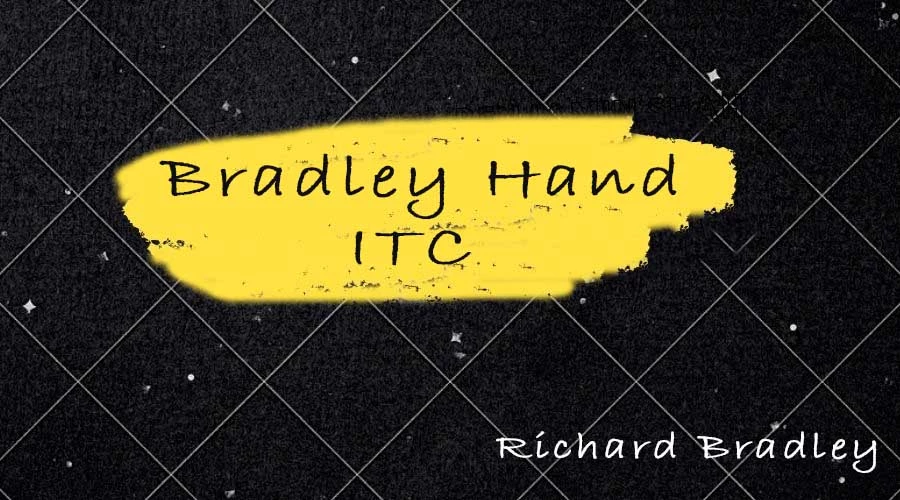
Bradley Hand ITC Font is a Handwritten font family designed by Richard Bradley and published through International Typeface Corporation in 1995. Warm and familiar, ITC Bradley Hand has a relaxed rhythm typical of handwriting and lends a personal touch to computer-generated copy. It gives the impression of a personal, handwritten note and brings a human touch to digital correspondence.
The usage of the ITC Bradley Hand font has gone a long way. The designer created the font to bring some options that would give the users a good variety. However, the font got its position in many sectors the designer might not think of.
ITC Bradley Hand is recommended for headlines and short to mid-length texts. It has good legibility in point sizes as small as 8. It is not recommended for professional correspondence but would be an asset as a design element in an ad or branding campaign.